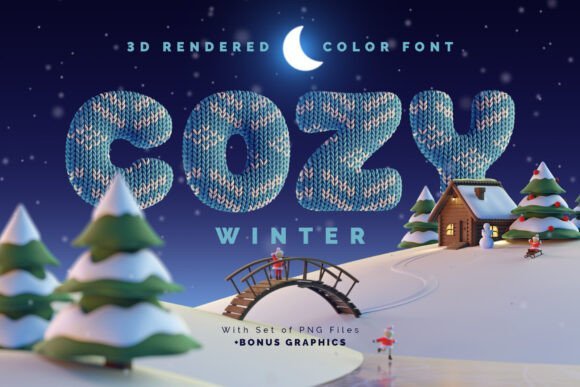
Introducing **Cozy Winter**, a snug and creative font set.
This 3D-rendered, high-quality typeface features knitted fabric with a cozy sweater pattern It’s a color bitmap OpenType-SVG font, which works just like a regular OTF font.